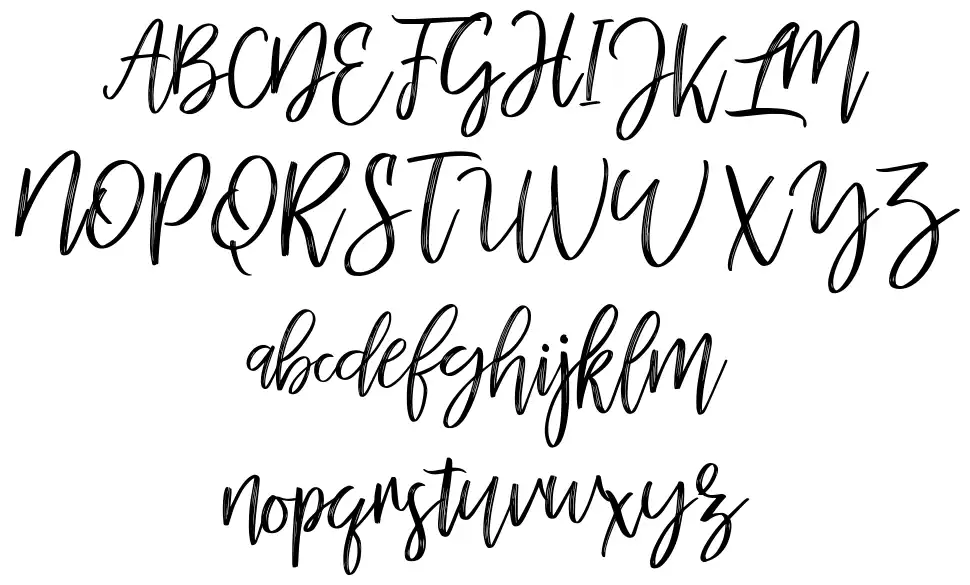
Mellony Dry Brush Regular Font . This font is free for personal use. Mellony dry brush regular font by tom jerry. File script name mellony dry brush.ttf download free for personal use. See how mellony dry brush regular. Introducing mellony brush script font. ️ customize your own preview on ffonts.net to make sure it`s the right one for your designs. Mellony is a modern calligraphy font family. File script name mellony dry brush.otf download free for personal use. Experience the mellony dry brush regular font on windows, mac, and linux with our instant preview feature. Mellony dry brush regular font by alit design. Download and install the mellony dry brush font by alit design. The mellony dry brush font has been downloaded 161,975 times. The mellony dry brush font contains 80 beautifully designed characters. This typeface has four styles and was published by alitdesign.
See how mellony dry brush regular. Download and install the mellony dry brush font by alit design. This font is free for personal use. Mellony dry brush regular font by tom jerry. This typeface has four styles and was published by alitdesign. Mellony is a modern calligraphy font family. The mellony dry brush font has been downloaded 161,975 times. File script name mellony dry brush.otf download free for personal use. ️ customize your own preview on ffonts.net to make sure it`s the right one for your designs. Mellony dry brush regular font by alit design.
Mellony Dry Brush Regular Font Mellony dry brush regular font by tom jerry. See how mellony dry brush regular. This typeface has four styles and was published by alitdesign. The mellony dry brush font contains 80 beautifully designed characters. ️ customize your own preview on ffonts.net to make sure it`s the right one for your designs. File script name mellony dry brush.ttf download free for personal use. This font is free for personal use. Introducing mellony brush script font. Mellony dry brush regular font by alit design. Mellony dry brush regular font by tom jerry. Mellony is a modern calligraphy font family. Experience the mellony dry brush regular font on windows, mac, and linux with our instant preview feature. Download and install the mellony dry brush font by alit design. The mellony dry brush font has been downloaded 161,975 times. File script name mellony dry brush.otf download free for personal use.
mellony dry brush Font Download Free for Desktop & font Mellony Dry Brush Regular Font File script name mellony dry brush.ttf download free for personal use. Mellony dry brush regular font by tom jerry. Experience the mellony dry brush regular font on windows, mac, and linux with our instant preview feature. This typeface has four styles and was published by alitdesign. Mellony is a modern calligraphy font family. The mellony dry brush font has been. Mellony Dry Brush Regular Font.
Mellony Dry Brush Font 1001 Free Fonts Mellony Dry Brush Regular Font The mellony dry brush font contains 80 beautifully designed characters. Mellony dry brush regular font by tom jerry. This typeface has four styles and was published by alitdesign. Mellony is a modern calligraphy font family. See how mellony dry brush regular. Introducing mellony brush script font. ️ customize your own preview on ffonts.net to make sure it`s the right one. Mellony Dry Brush Regular Font.
Mellony Dry Brush Font download free Mellony Dry Brush Regular Font File script name mellony dry brush.ttf download free for personal use. Mellony is a modern calligraphy font family. Experience the mellony dry brush regular font on windows, mac, and linux with our instant preview feature. The mellony dry brush font has been downloaded 161,975 times. This typeface has four styles and was published by alitdesign. Mellony dry brush regular font. Mellony Dry Brush Regular Font.
Mellony Font Download Mellony Dry Brush Regular Font File script name mellony dry brush.otf download free for personal use. File script name mellony dry brush.ttf download free for personal use. Mellony dry brush regular font by alit design. Download and install the mellony dry brush font by alit design. Mellony is a modern calligraphy font family. The mellony dry brush font contains 80 beautifully designed characters. The mellony. Mellony Dry Brush Regular Font.
Mellony Dry Brush Font download free Mellony Dry Brush Regular Font Mellony dry brush regular font by alit design. This typeface has four styles and was published by alitdesign. The mellony dry brush font contains 80 beautifully designed characters. File script name mellony dry brush.ttf download free for personal use. The mellony dry brush font has been downloaded 161,975 times. This font is free for personal use. Introducing mellony brush script. Mellony Dry Brush Regular Font.
Mellony Brush Script Font Design Cuts Mellony Dry Brush Regular Font This font is free for personal use. Introducing mellony brush script font. This typeface has four styles and was published by alitdesign. Mellony is a modern calligraphy font family. Mellony dry brush regular font by tom jerry. ️ customize your own preview on ffonts.net to make sure it`s the right one for your designs. Experience the mellony dry brush regular. Mellony Dry Brush Regular Font.
Mellony Fonts Shmonts Mellony Dry Brush Regular Font The mellony dry brush font contains 80 beautifully designed characters. The mellony dry brush font has been downloaded 161,975 times. This font is free for personal use. Experience the mellony dry brush regular font on windows, mac, and linux with our instant preview feature. Introducing mellony brush script font. This typeface has four styles and was published by alitdesign. File. Mellony Dry Brush Regular Font.
Download Mellony Dry Brush font Mellony Dry Brush Regular Font See how mellony dry brush regular. Experience the mellony dry brush regular font on windows, mac, and linux with our instant preview feature. Mellony is a modern calligraphy font family. The mellony dry brush font has been downloaded 161,975 times. ️ customize your own preview on ffonts.net to make sure it`s the right one for your designs. Download and install. Mellony Dry Brush Regular Font.
Mellony free font Mellony Dry Brush Regular Font See how mellony dry brush regular. The mellony dry brush font contains 80 beautifully designed characters. The mellony dry brush font has been downloaded 161,975 times. Mellony dry brush regular font by alit design. This font is free for personal use. Introducing mellony brush script font. This typeface has four styles and was published by alitdesign. ️ customize your own. Mellony Dry Brush Regular Font.